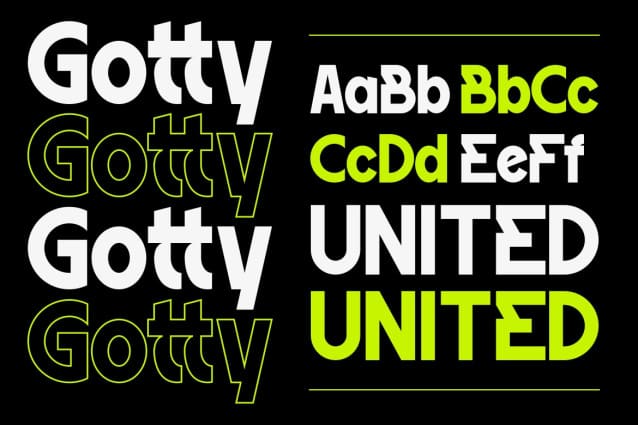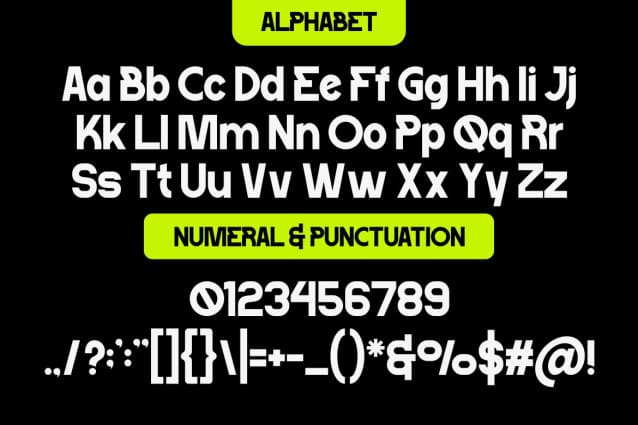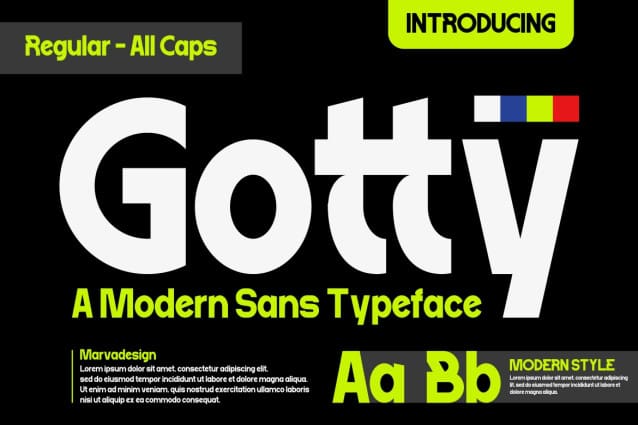
Gotty Font
Gotty Font – Modern Font is a bold and authentic display font. The font is suitable for any branding project such as logo, t-shirt printing, product printing and many more. It looks exceptional in a wide range of contexts